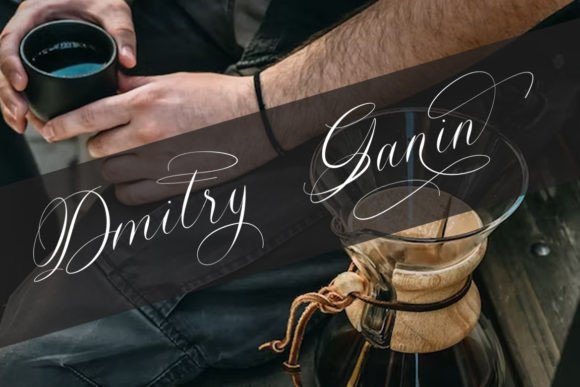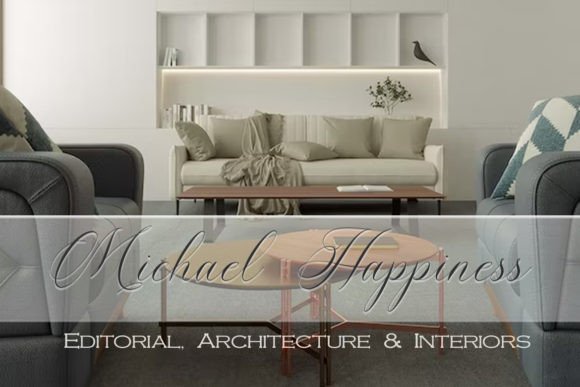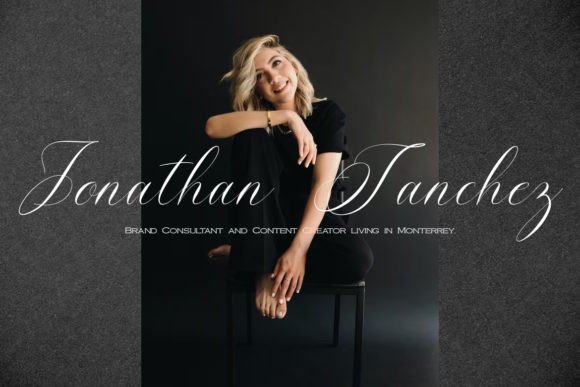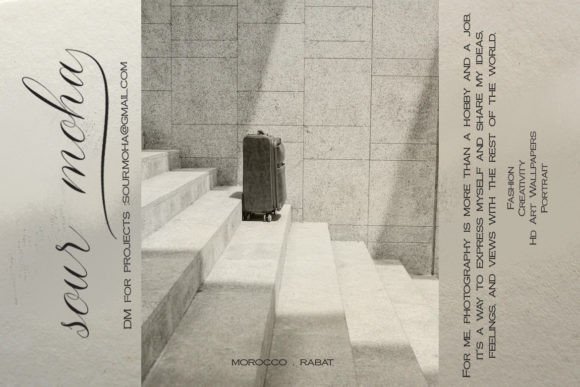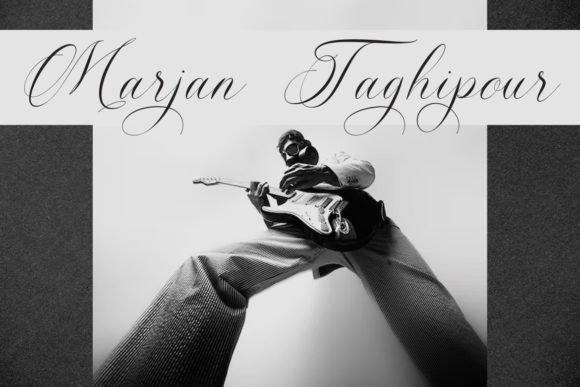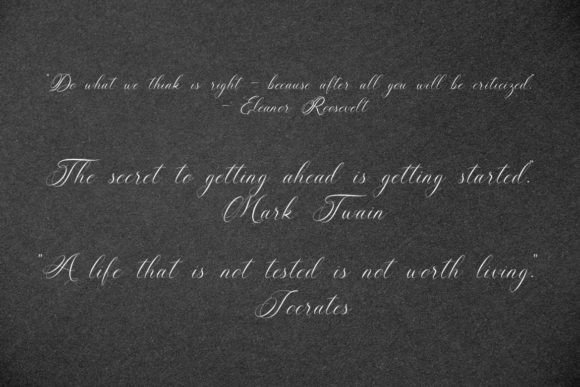
Introduction to Leva Blackshear Font Font
Fonts play a crucial role in design, and the Leva Blackshear Font font is a typeface that brings both character and versatility to any project. Whether you’re working on a branding project, a website, or a print design, the Leva Blackshear Font font offers a unique style that can elevate your work.
Leva Blackshear is a sleek, modern, and graceful script font.
Fall in love with its ravishing style and use it to create beautiful designs This font is PUA encoded which means you can access all the glyphs and sweeps easily.
Key Features of Leva Blackshear Font Font
Why Choose Leva Blackshear Font Font?
The Leva Blackshear Font font is more than just a typeface – it’s a design tool that helps you communicate your message with style and clarity. Its unique character set and versatile design make it suitable for a wide range of applications, from elegant invitations to bold headlines.
With its carefully crafted letterforms and balanced proportions, the Leva Blackshear Font font ensures readability and visual appeal across all mediums.
What makes Leva Blackshear Font font special?
The Leva Blackshear Font font stands out with its unique design, exceptional readability, and versatility across various design applications.